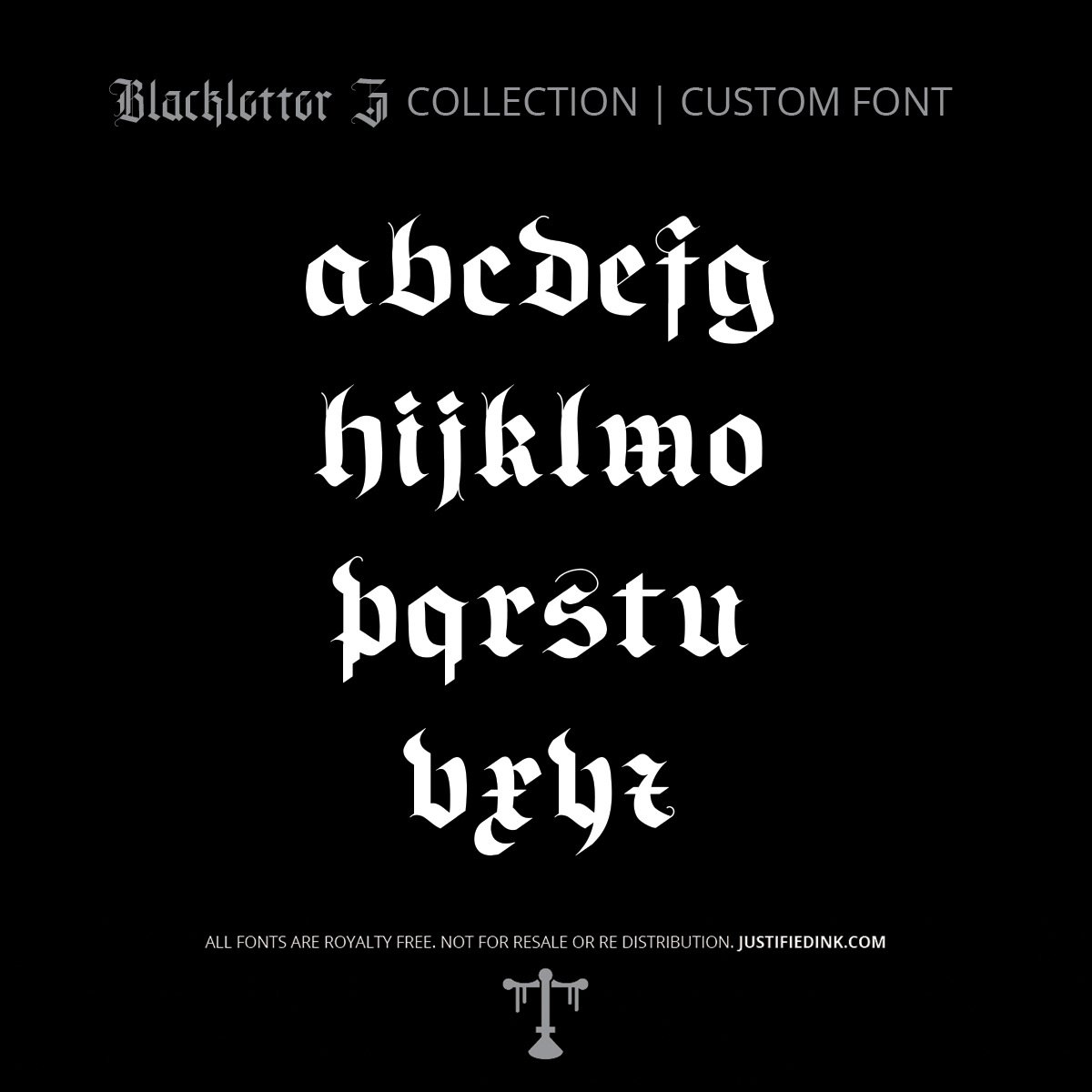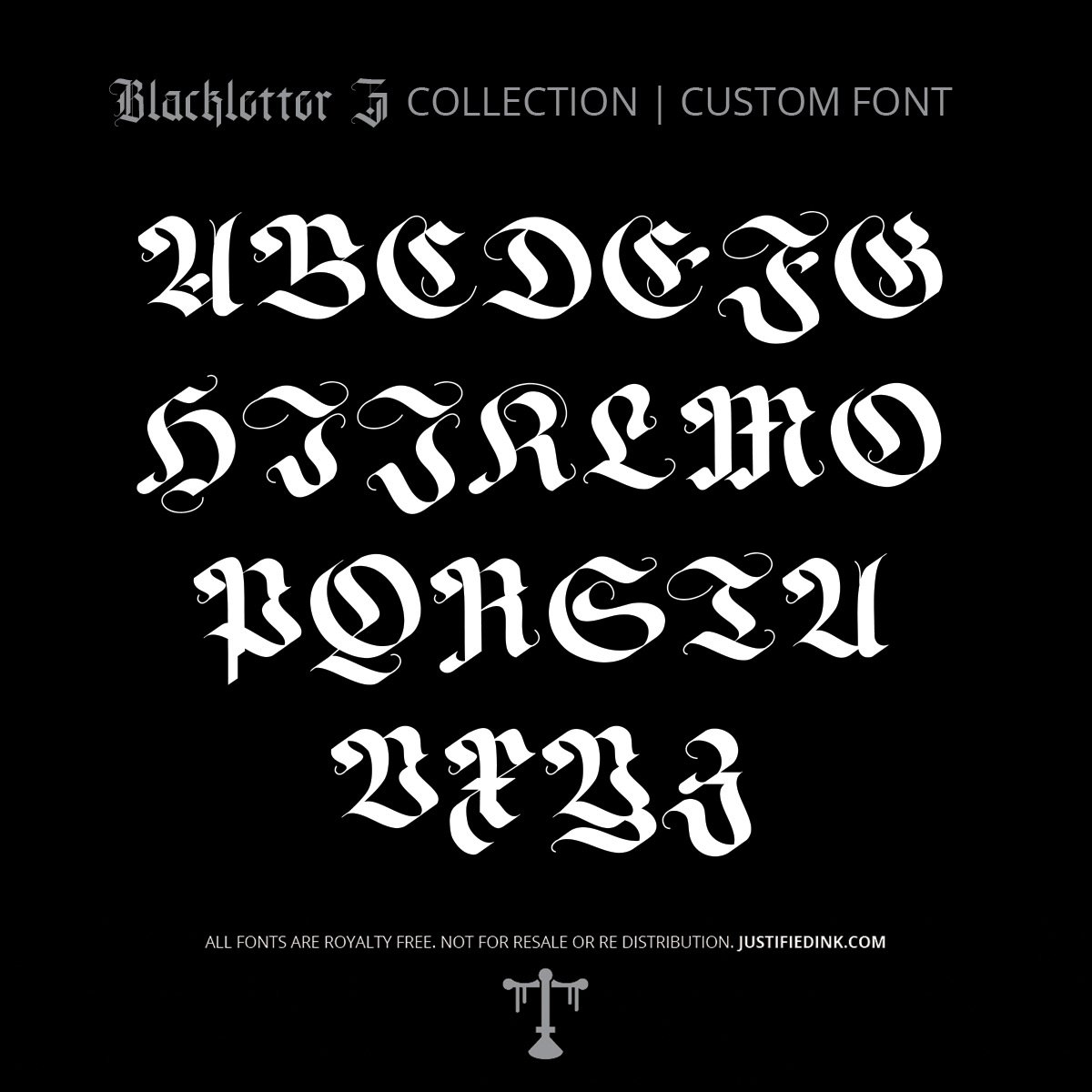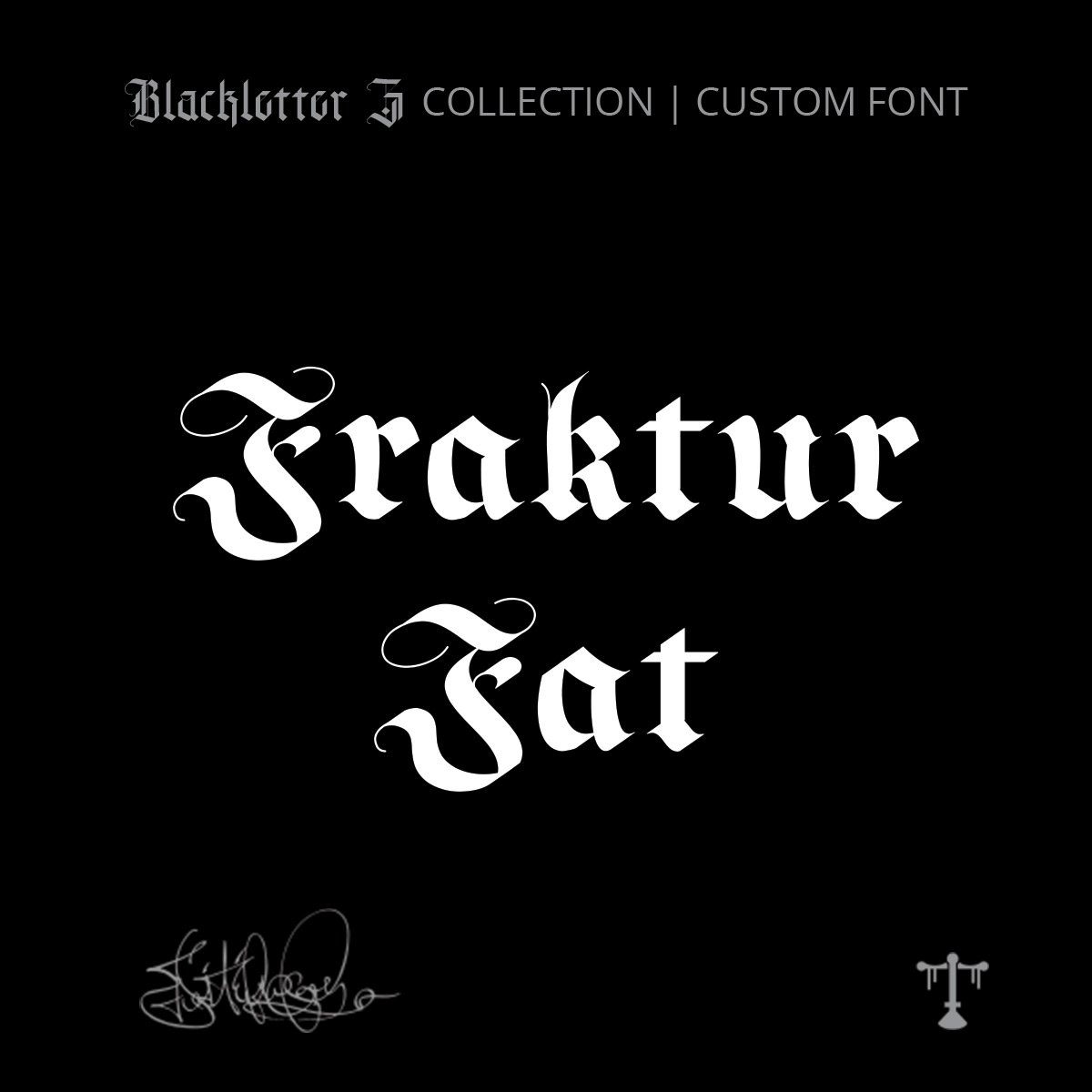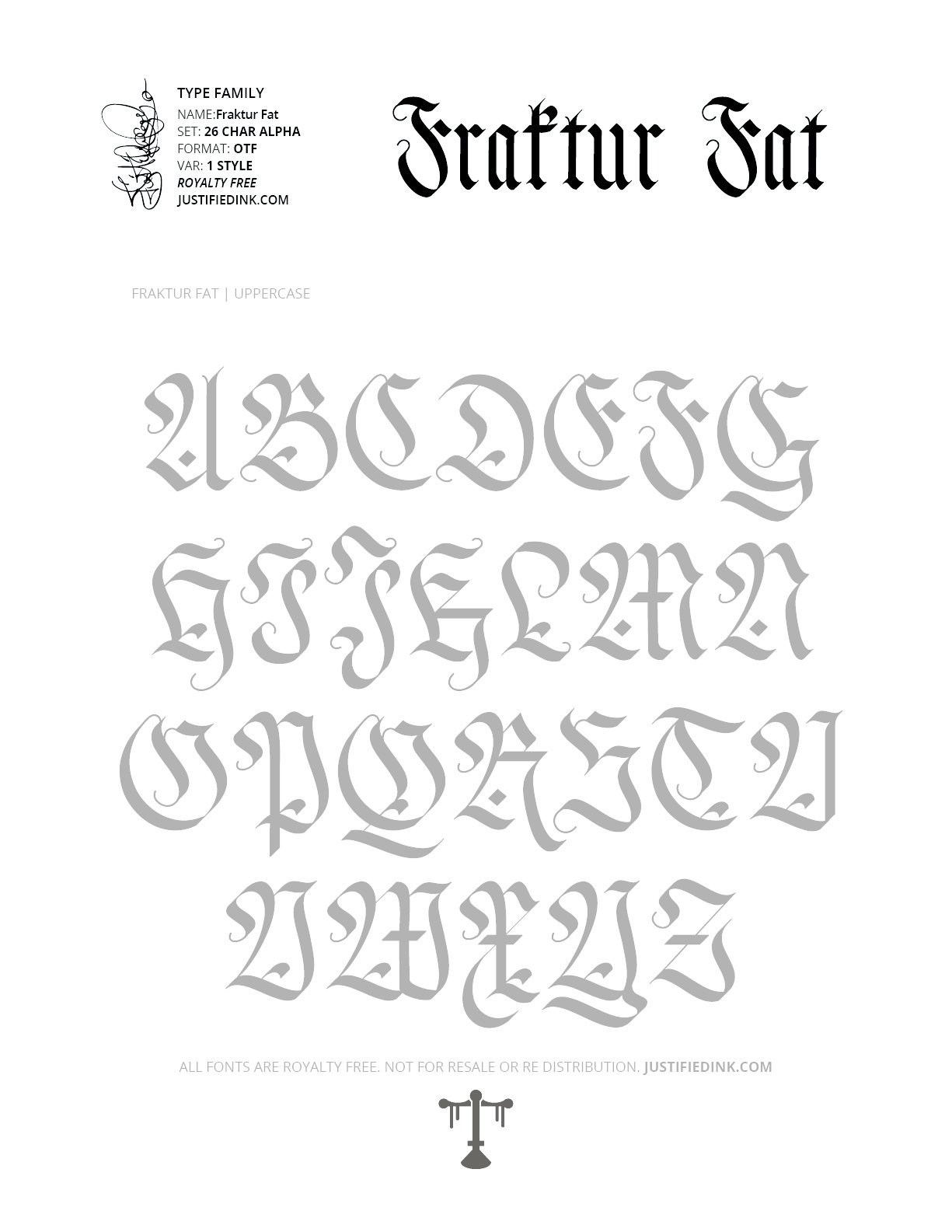
Fraktur Fat (1 style) - Custom Font
Bold German Blackletter Authority
Fraktur Fat amplifies the classic German fraktur script into a bold, heavy gothic font. Its thick strokes and condensed forms radiate strength and permanence, making it ideal for gothic logos, statement lettering, or tattoo designs that demand to be noticed. A powerful take on a timeless style.